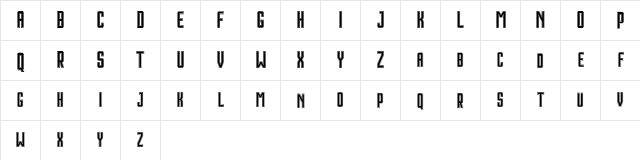
Houston Double Regular
Design Context for Houston Double Typeface
Houston Double is a composed and adaptable typeface that performs quietly and consistently across a wide range of design contexts.